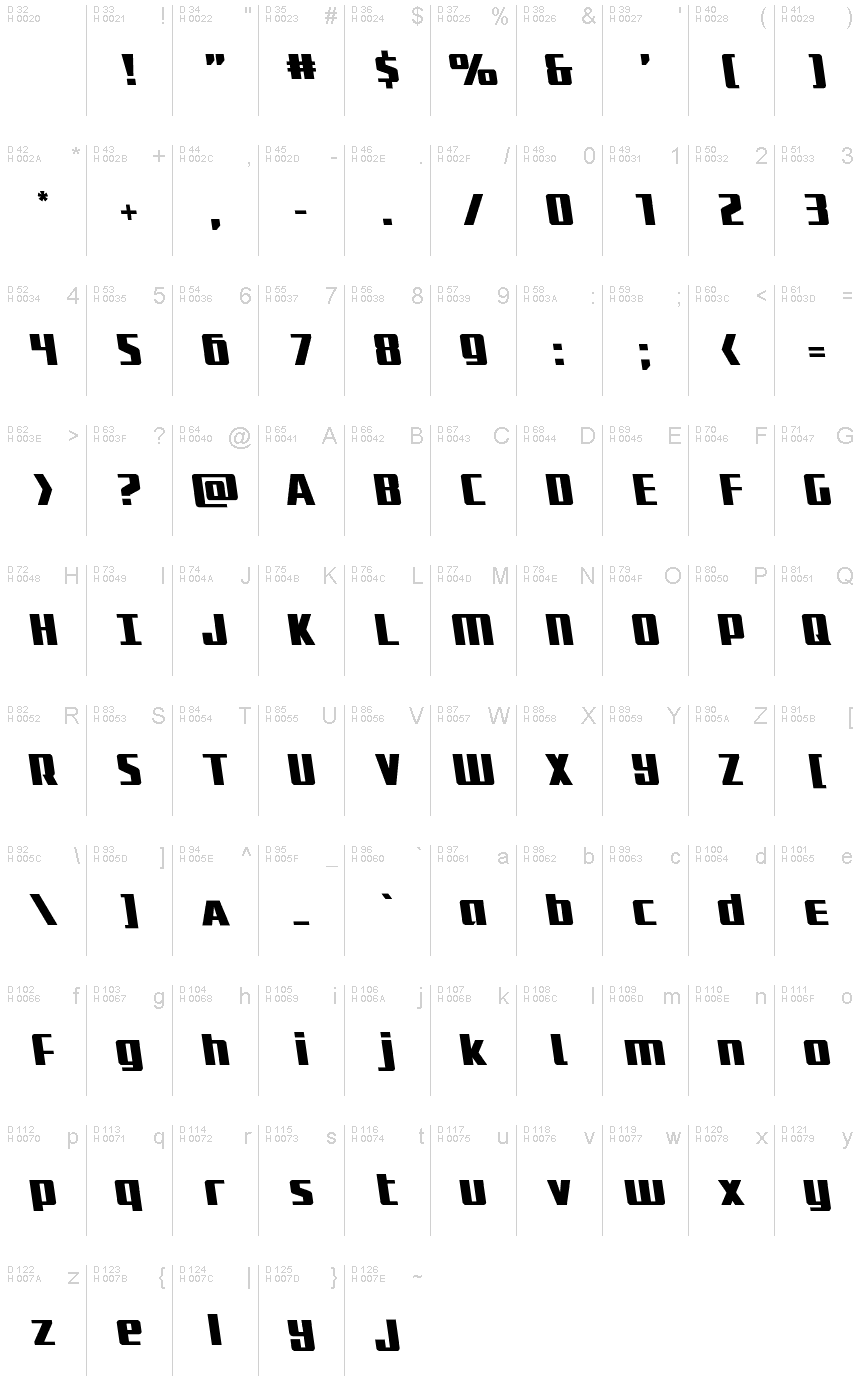
Subadai Baan Semi-Leftalic
Subadai Baan Semi-Leftalic is a bold display font designed for those who want to make a statement. Created by the talented Daniel Zadorozny, this techno-inspired typeface will give any project an edge. Its semi-leftalic style adds a unique touch to any design, making it perfect for branding, advertising, and product packaging. The Subadai Baan family offers versatility with its various weights and styles, allowing for creative exploration in multiple industries. Whether you're designing a futuristic website or creating an eye-catching poster, Subadai Baan Semi-Leftalic will elevate your project to the next level.